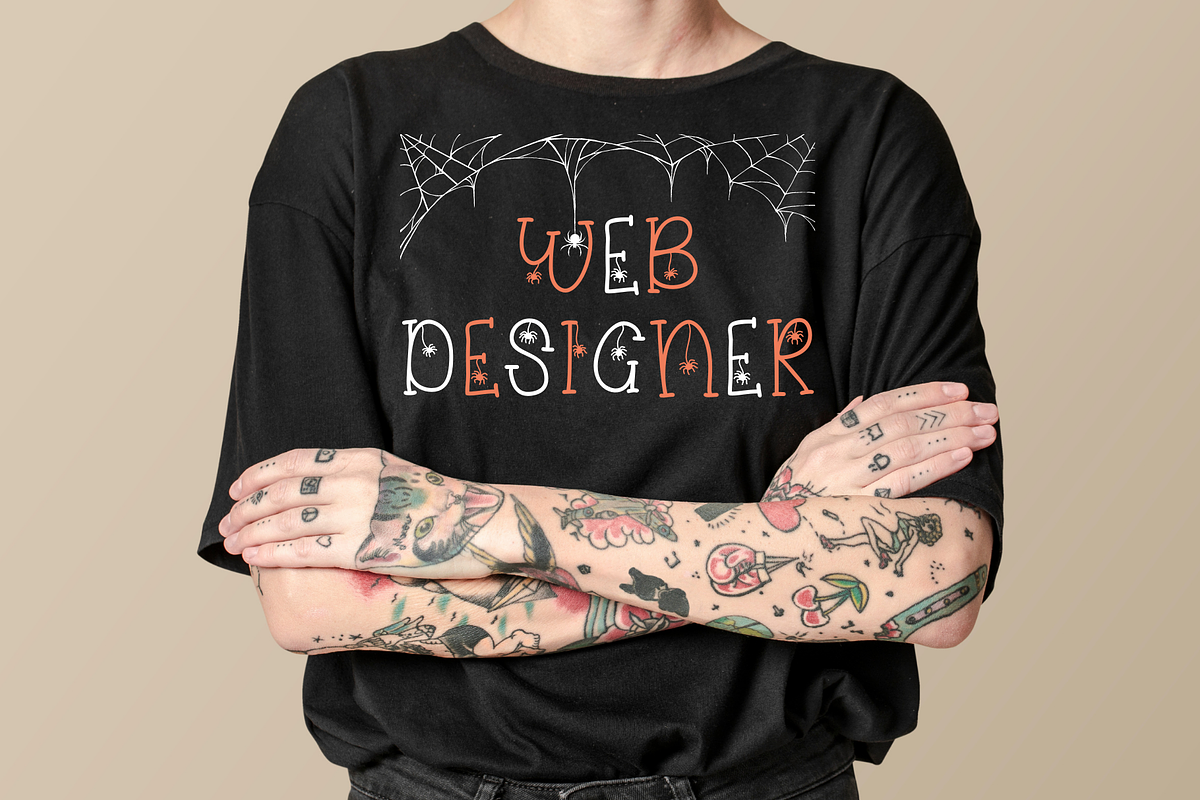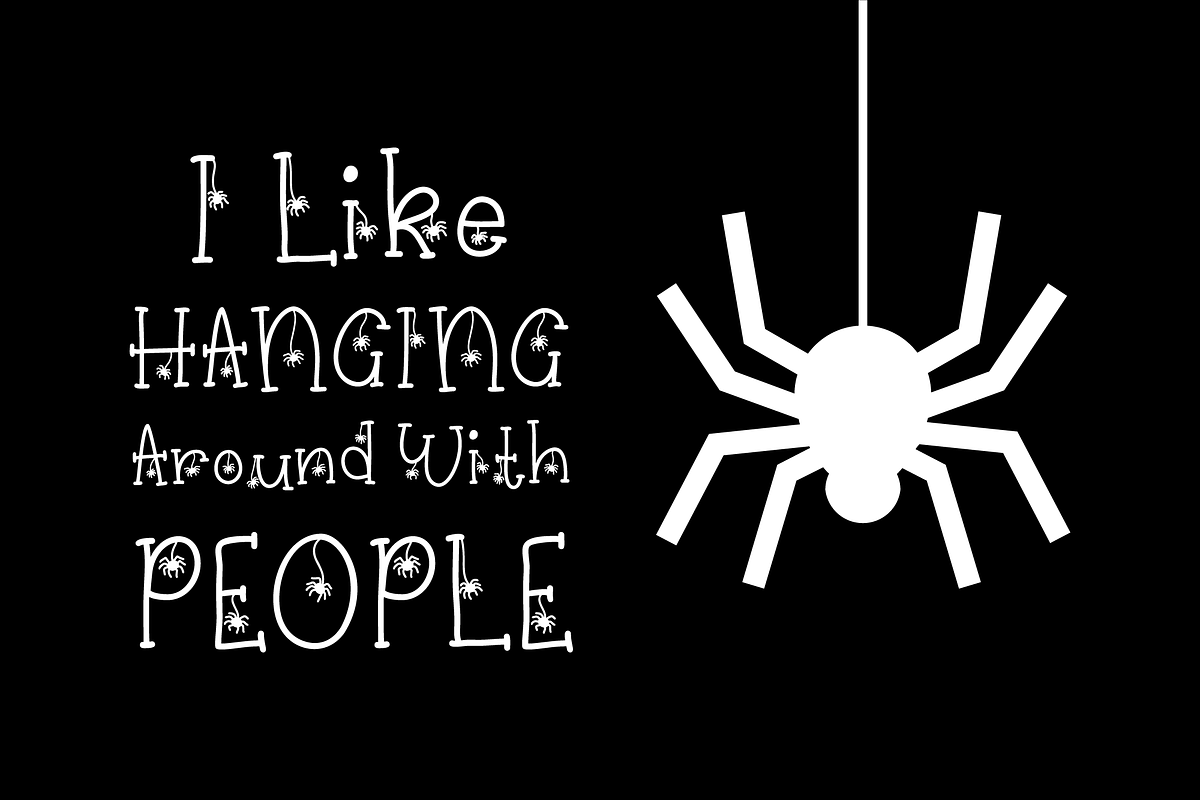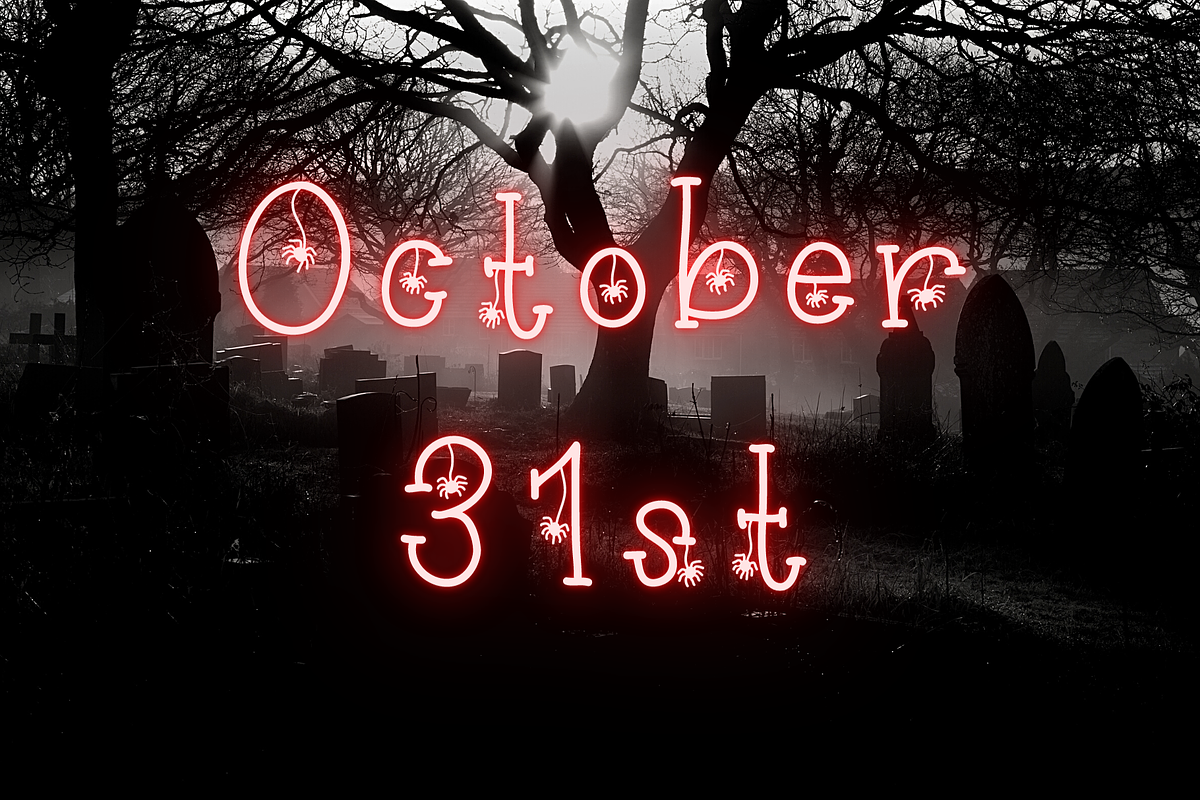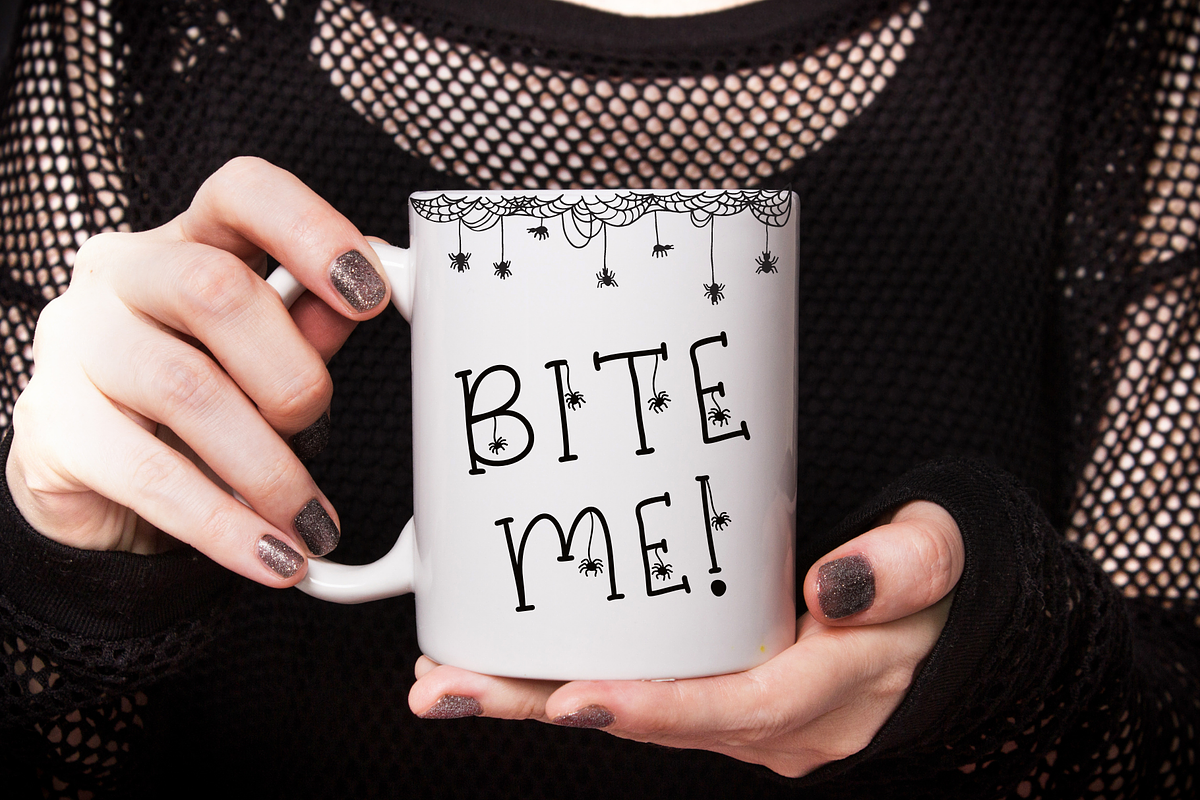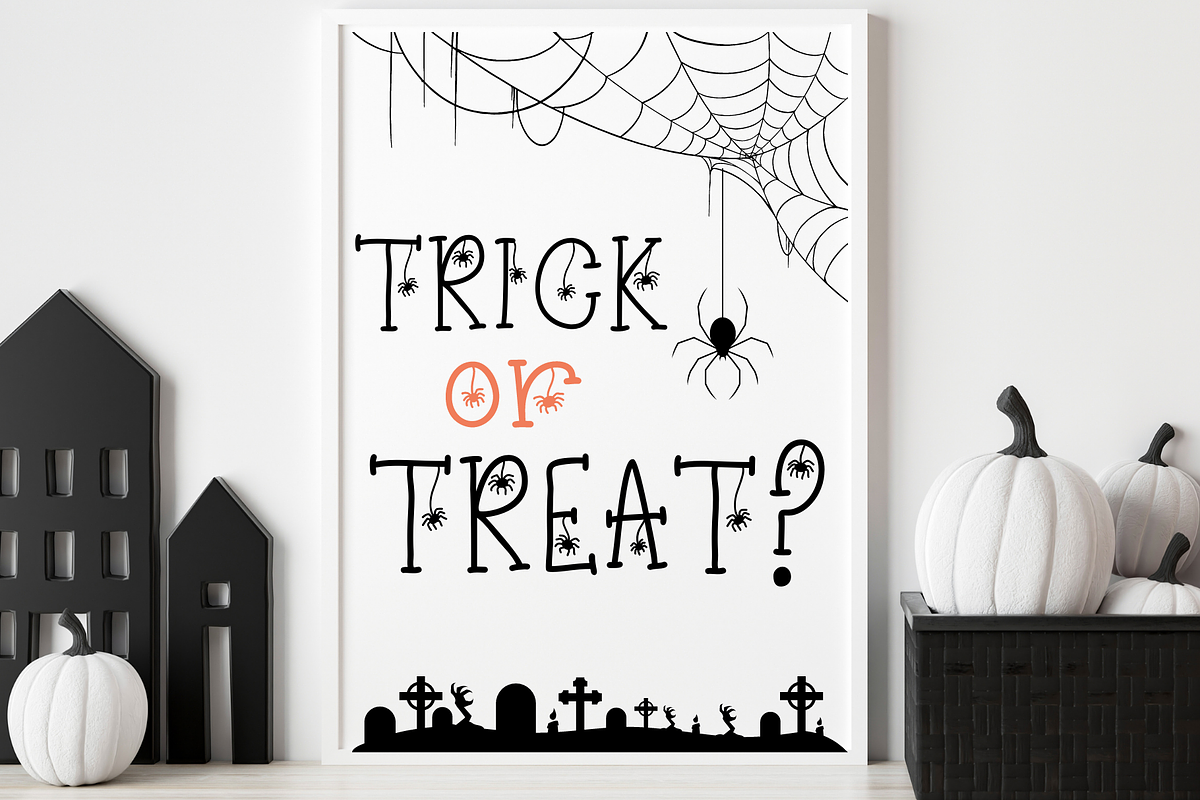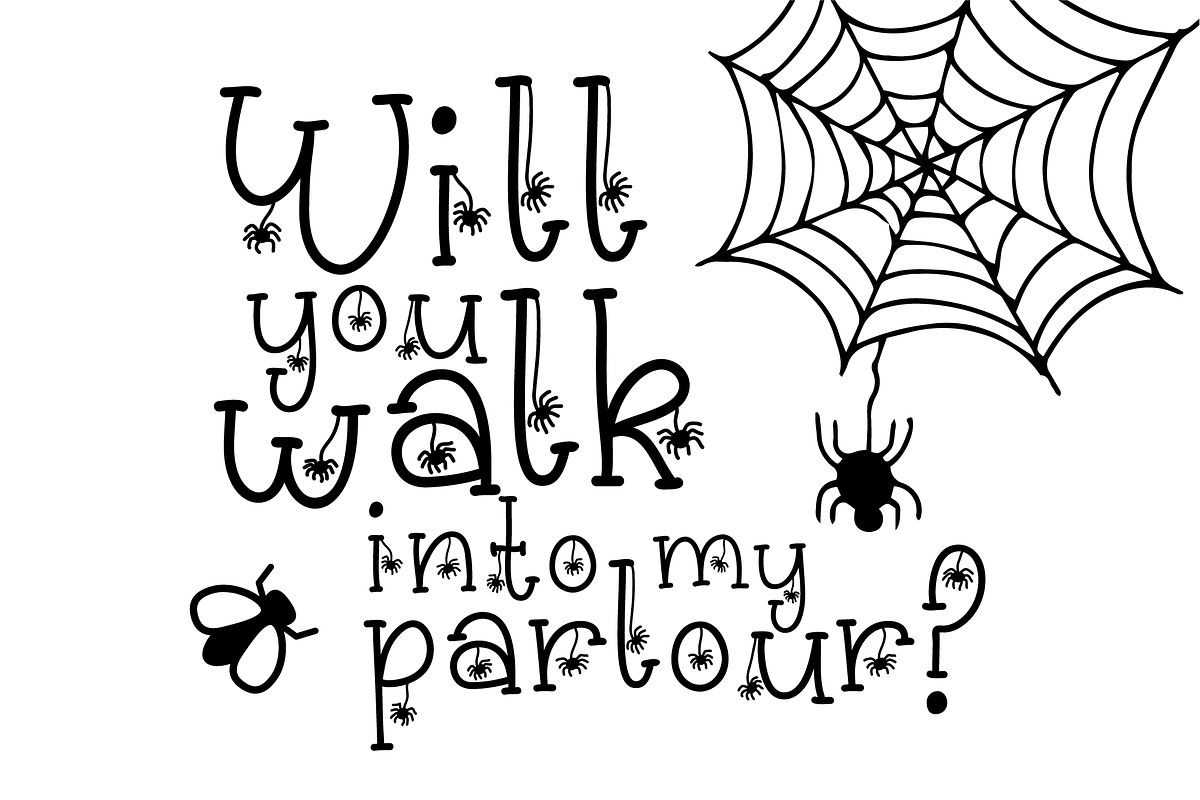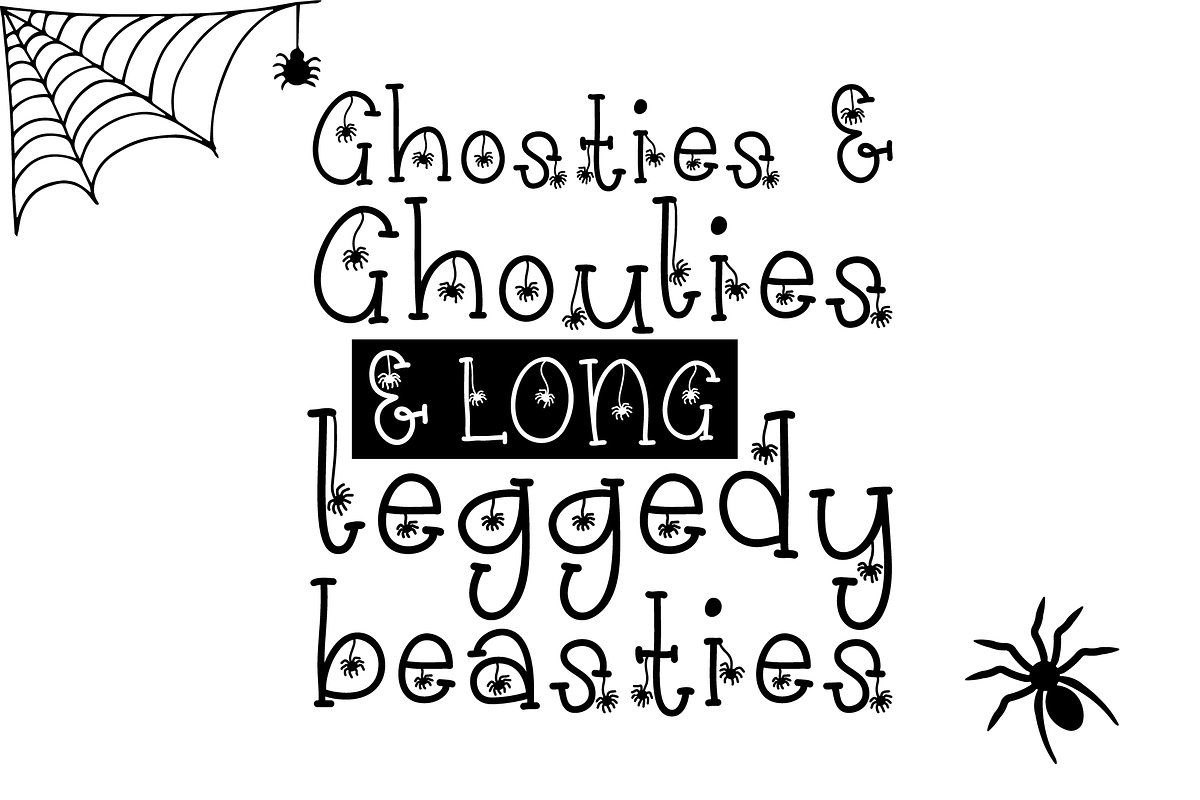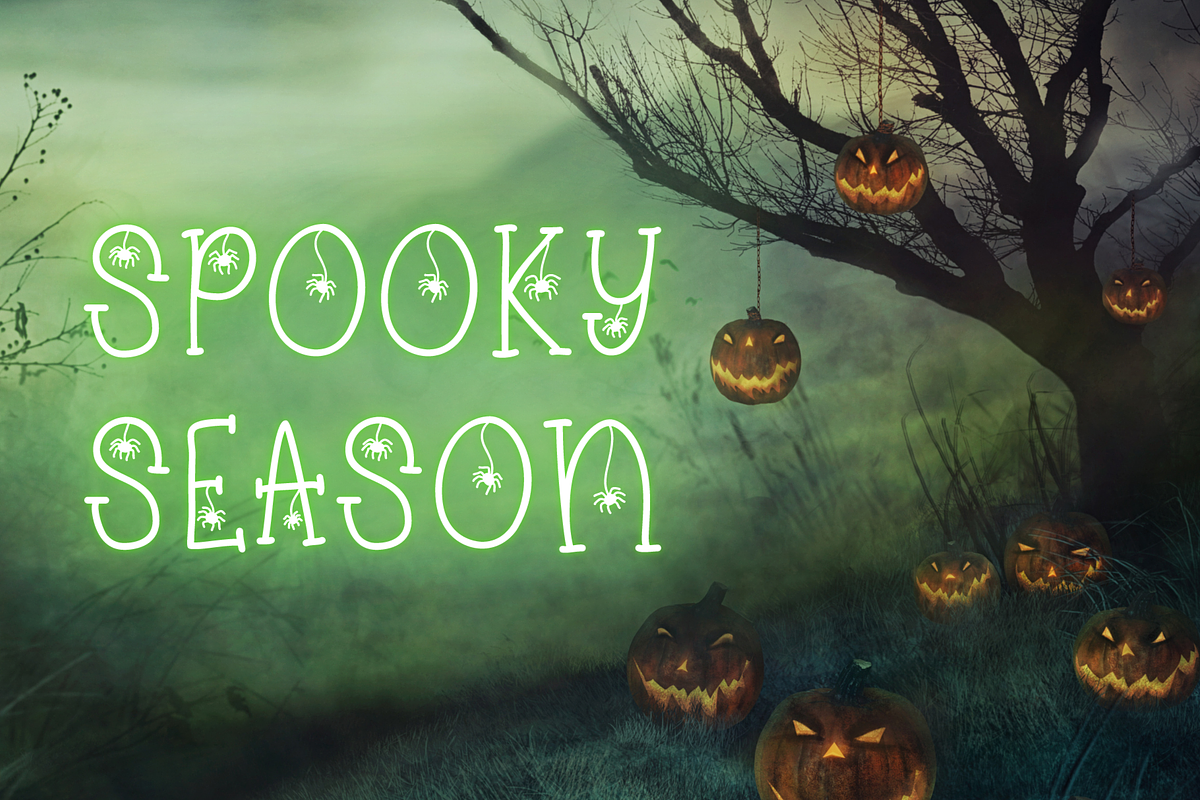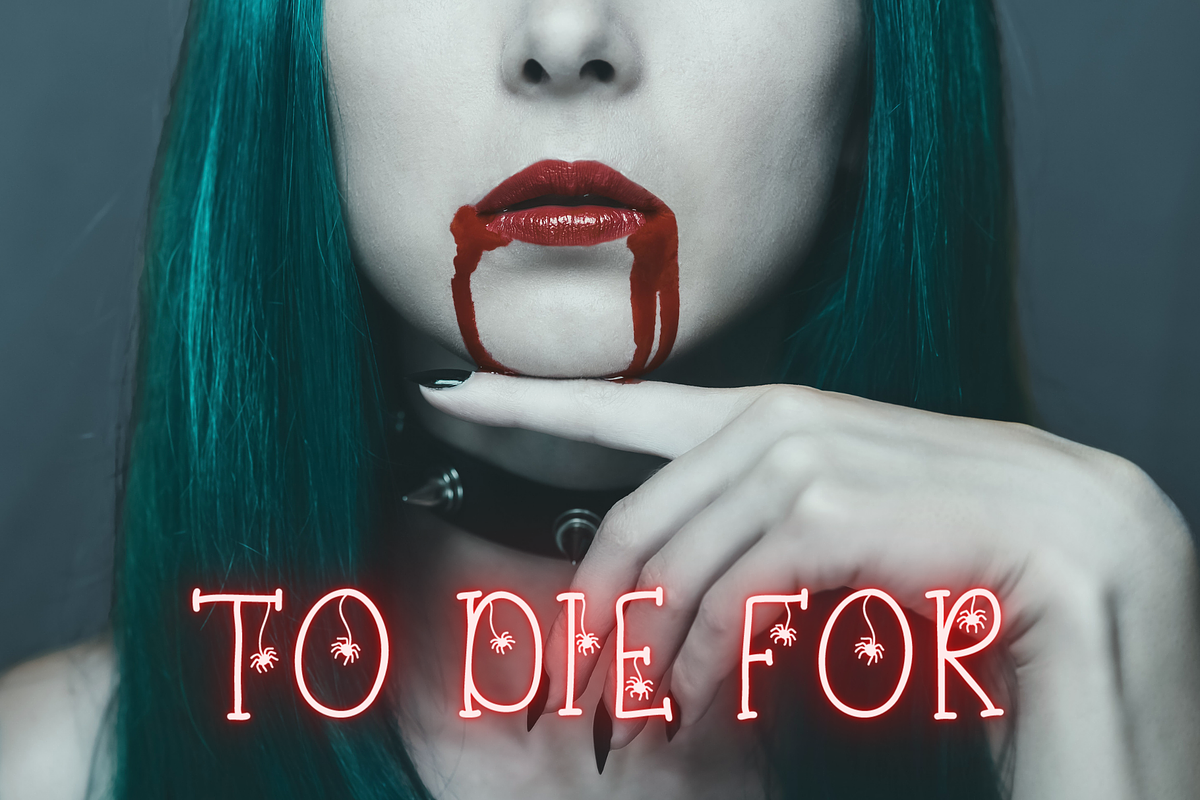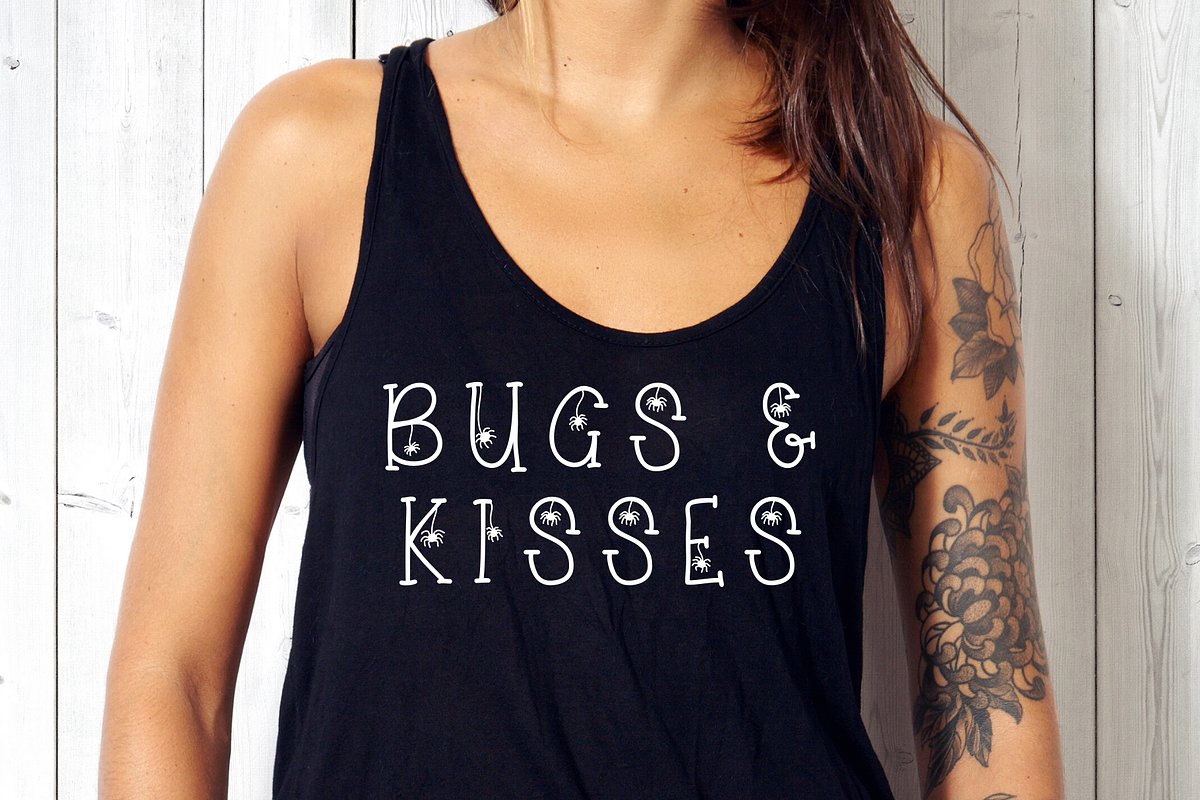
Creepily Crawling Halloween Font
A creepy halloween opentype font.
Creepily Crawling is a halloween font with a creepy spiders design. Perfect for a wide range of applications such as party invitations, flyers, banners, & halloween displays.